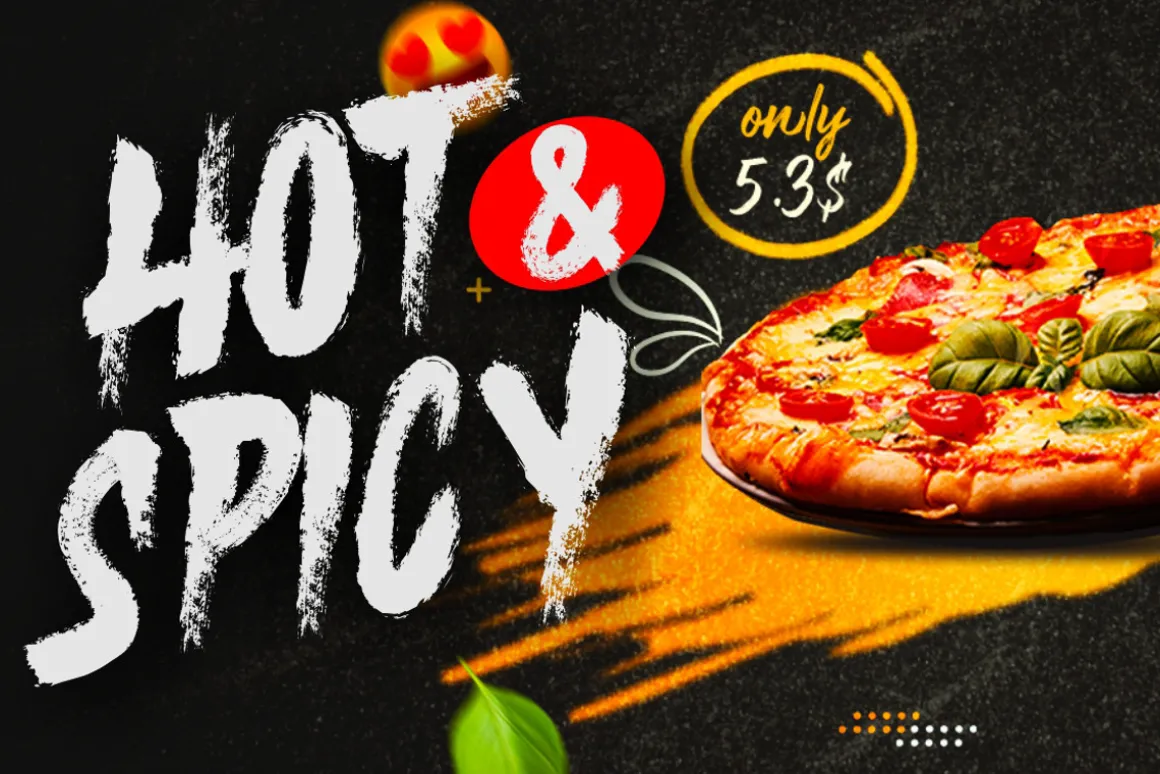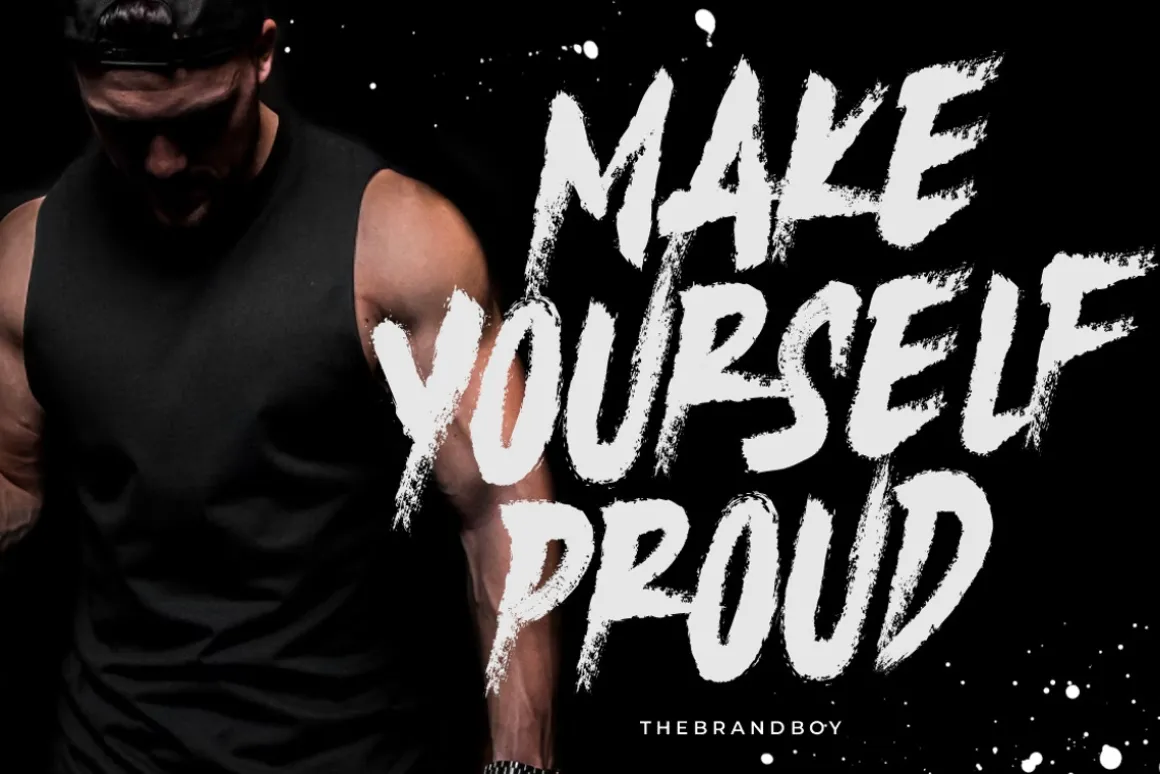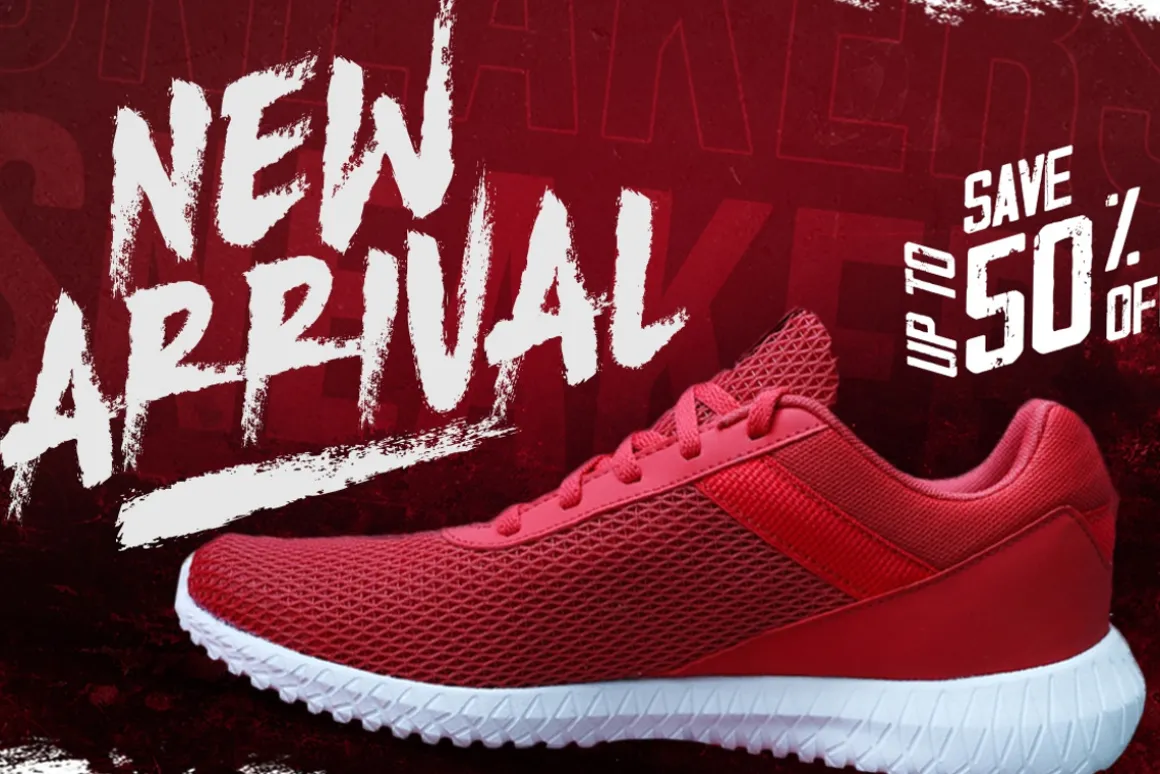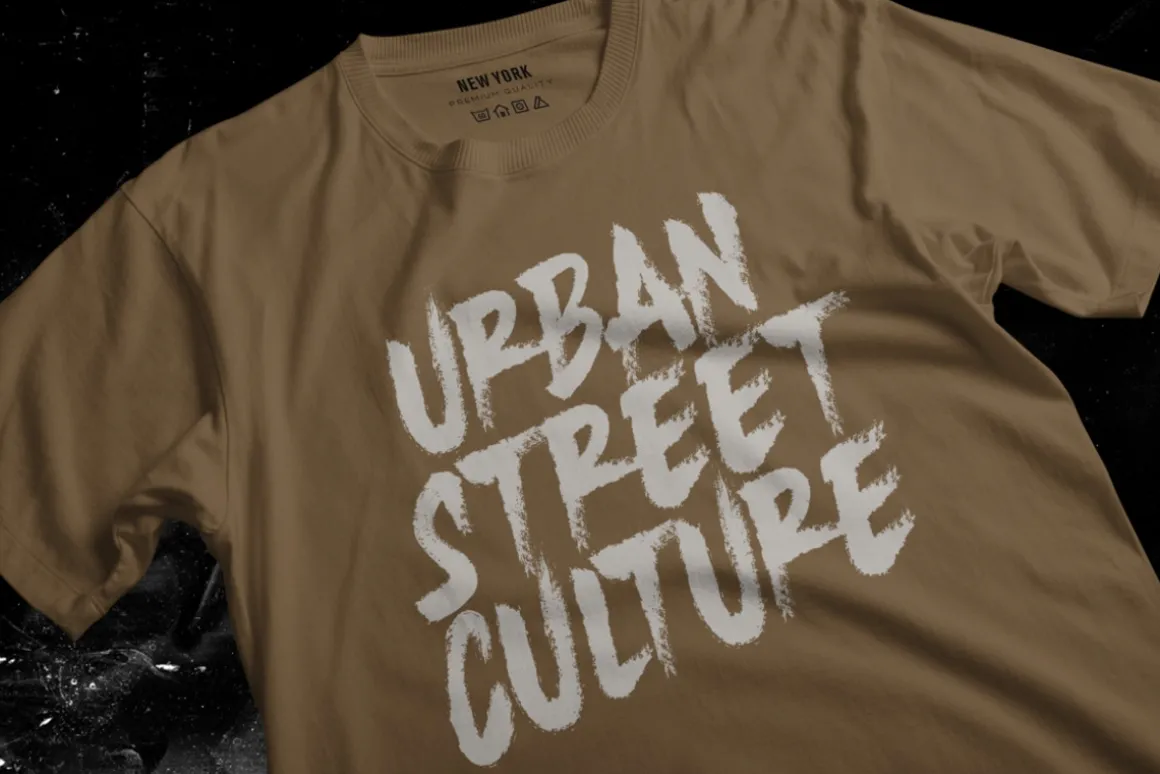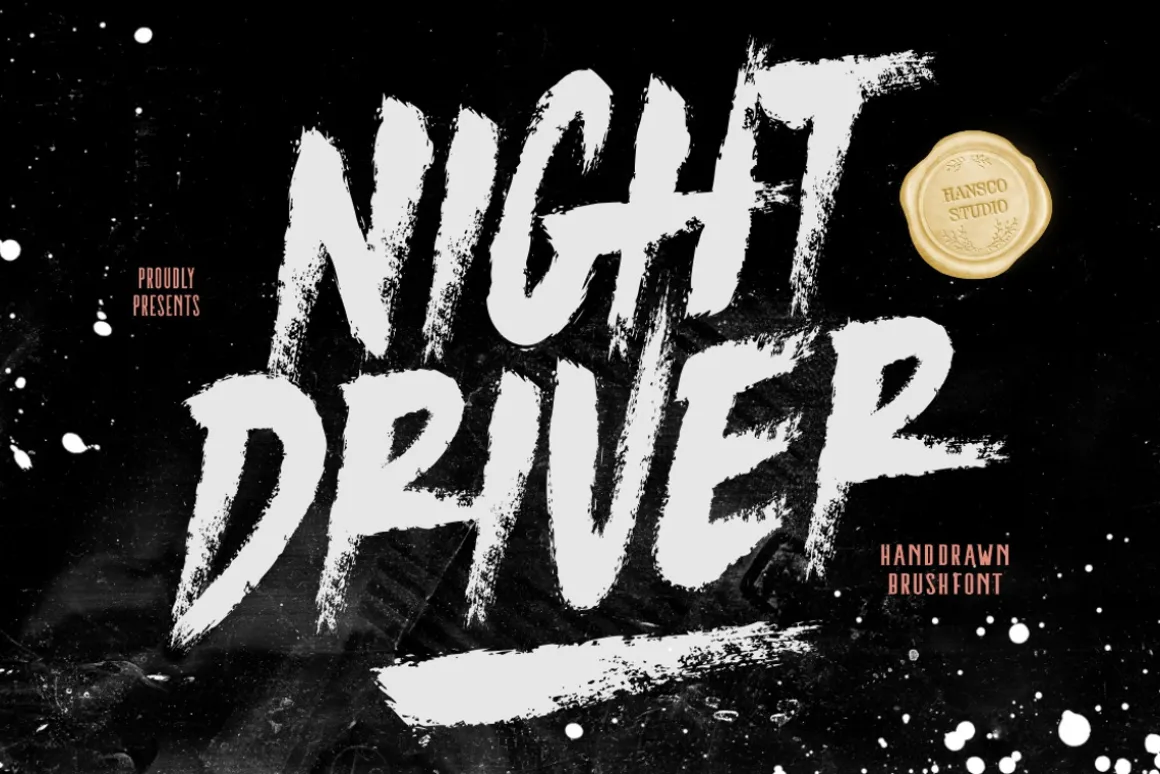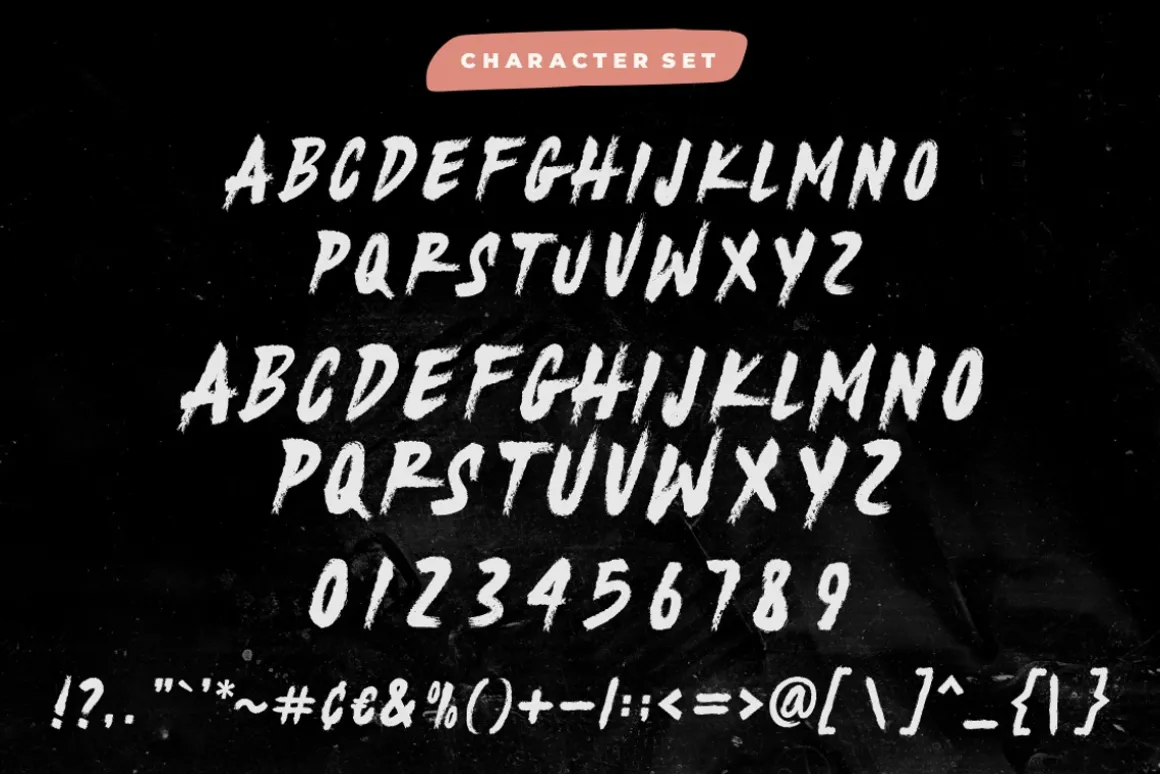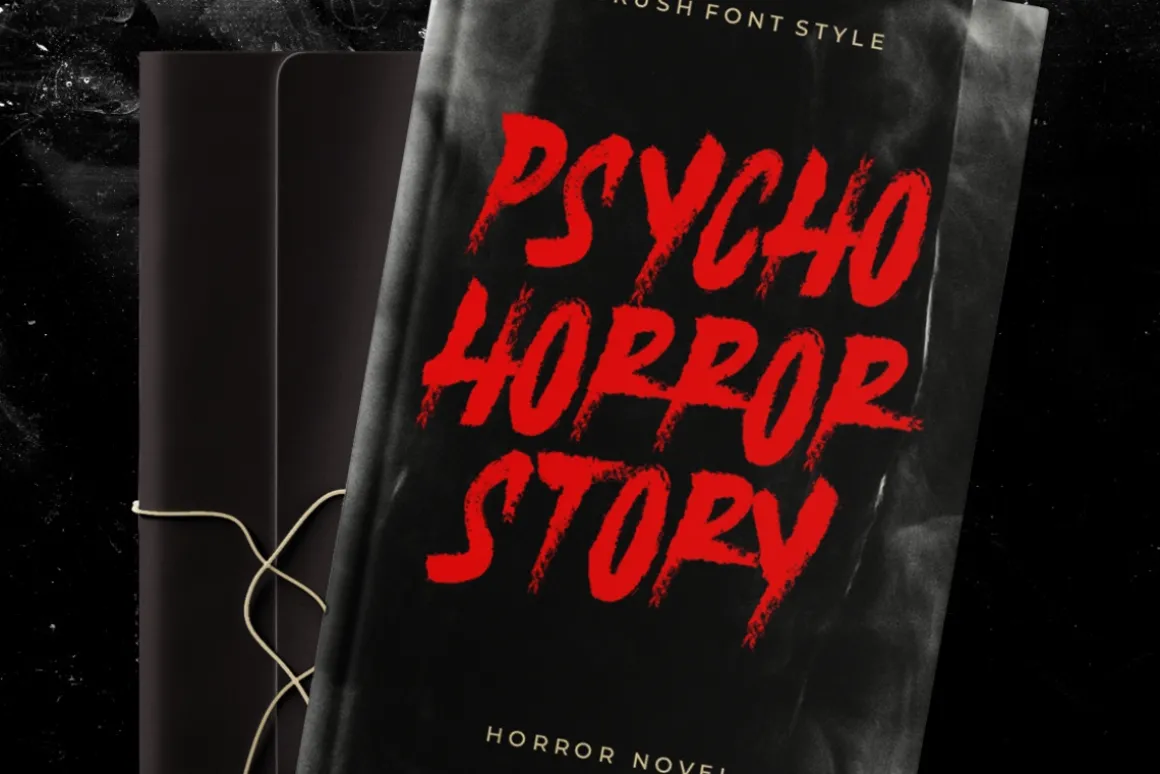
Night Driver is a display font with a bold and rough style in a dry brush texture. This texture is very detailed. This font is suitable for logos, product branding, printable templates, posters, flyers, shirts, or for text overlay to any background image. Night Driver font comes in All caps, with punctuation, numerals and also has multilingual support. Highly recommended to use it in OpenType capable software – there are plenty out there nowadays as technology catches up with design such as Adobe Illustrator, Adobe InDesign, Adobe Photoshop Corel Draw X version, Affinity and more.
- All Caps / All Uppercase
- Numbers & Punctuation
- Multilingual